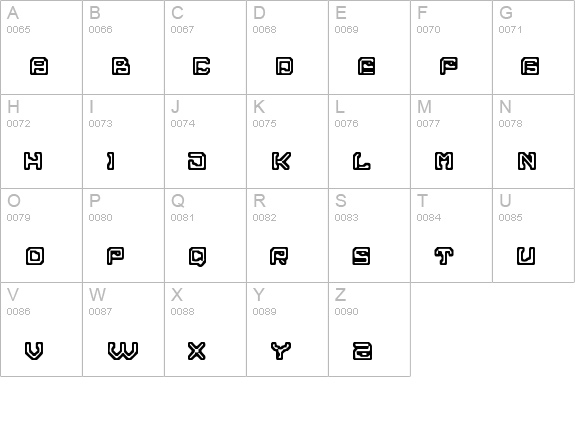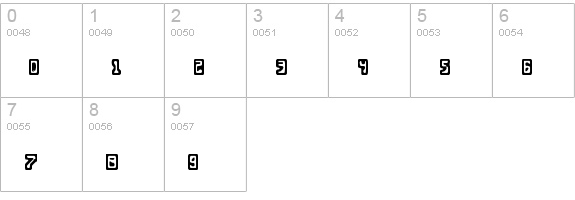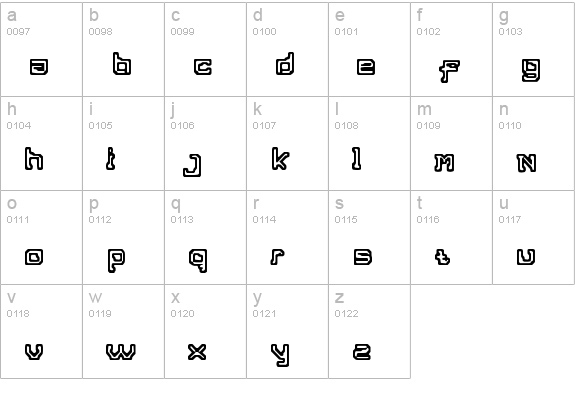
Lost Passenger 5.0 font is a stunning and unique typeface that will add a touch of mystery and intrigue to your designs. With its bold and angular letterforms, this font exudes a sense of adventure and exploration. Whether you're working on a poster, logo, or website, Lost Passenger 5.0 font will make your text stand out and capture the attention of your audience. What's even better is that Lost Passenger 5.0 font is available for free download at FontsMarket.com. You can easily add this eye-catching font to your collection without having to spend a dime. Don't miss out on this amazing opportunity to enhance your designs with the captivating Lost Passenger 5.0 font. Download it now and start creating stunning visuals that will leave a lasting impression.